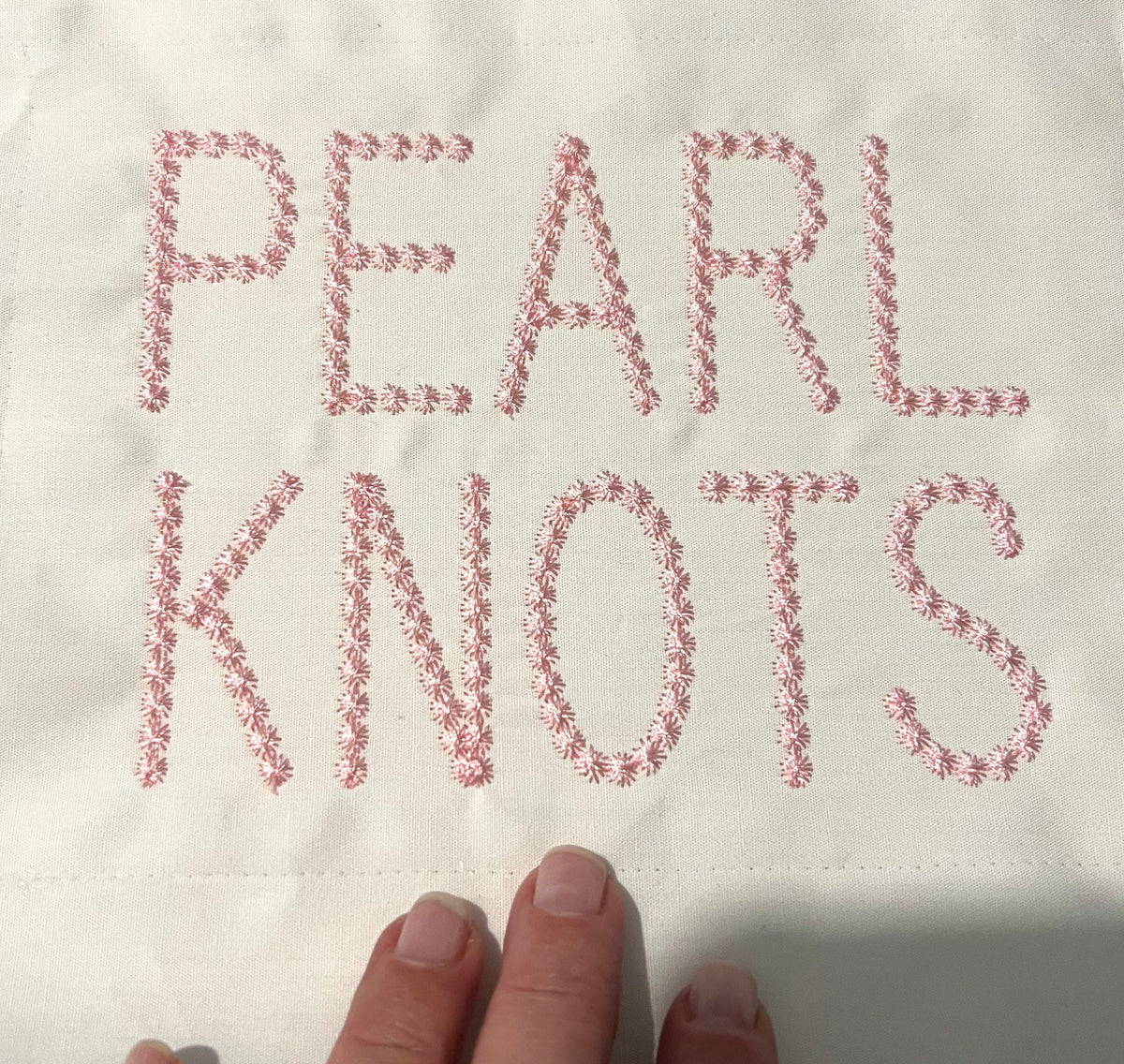
This is a DIGITAL instant download only of an all-capital simply elegant pearl knot/beaded font machine embroidery design which is offered in 6 sizes, 8 machine formats and BX mapped files.